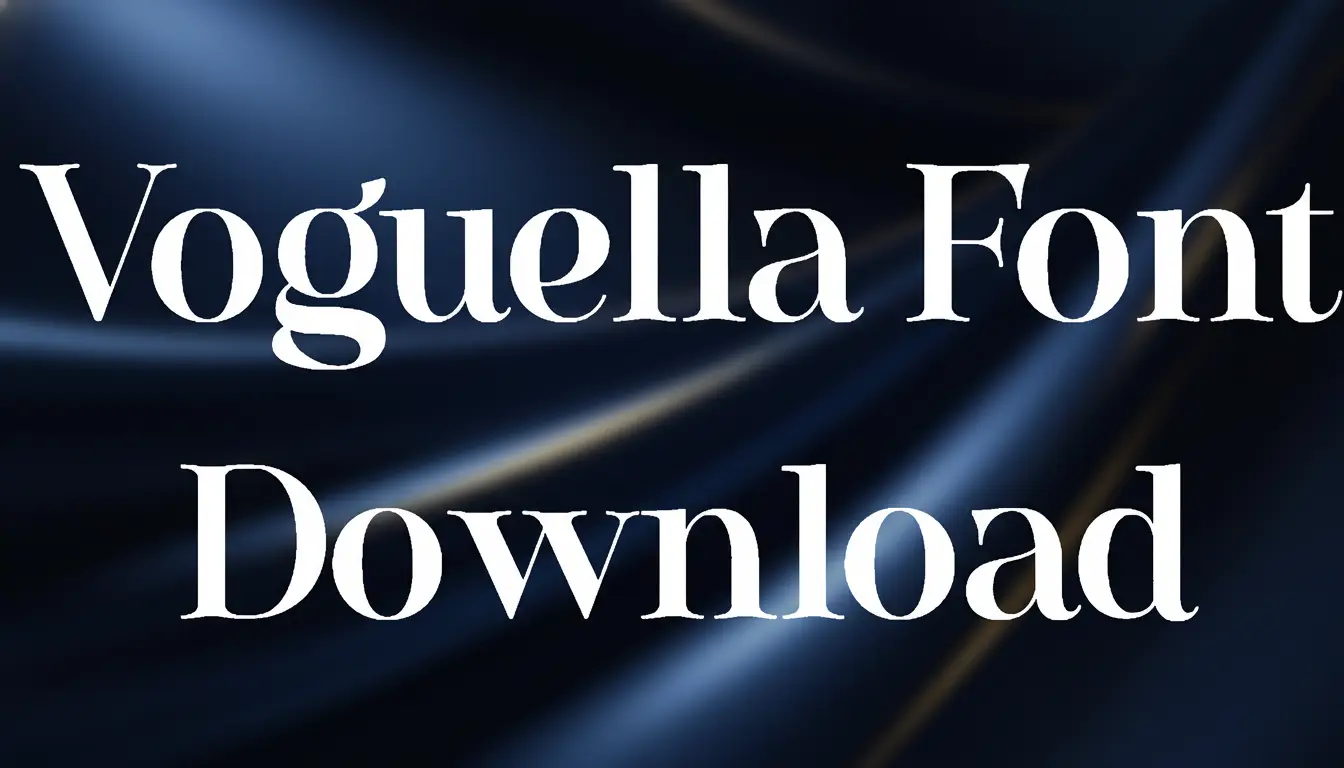
Voguella Luxurious Serif Display is an elegant and fashionable display serif font designed by Mokatype Studio. This font has been inspired by the mastheads of many popular luxury fashion magazines and identities of premium brands with its highly stylized use of geometrical serifs, high contrast strokes, and decorative ligatures. It is popular in editorial designs, luxurious wordmark logos, monograms, cosmetic packaging, and website header fonts.
Voguella
Voguella is a serif font created by Mokatype Studio – Abdul Malik – Adriansyah (2021).
- Designer: Mokatype Studio – Abdul Malik – Adriansyah
- Glyphs: 200